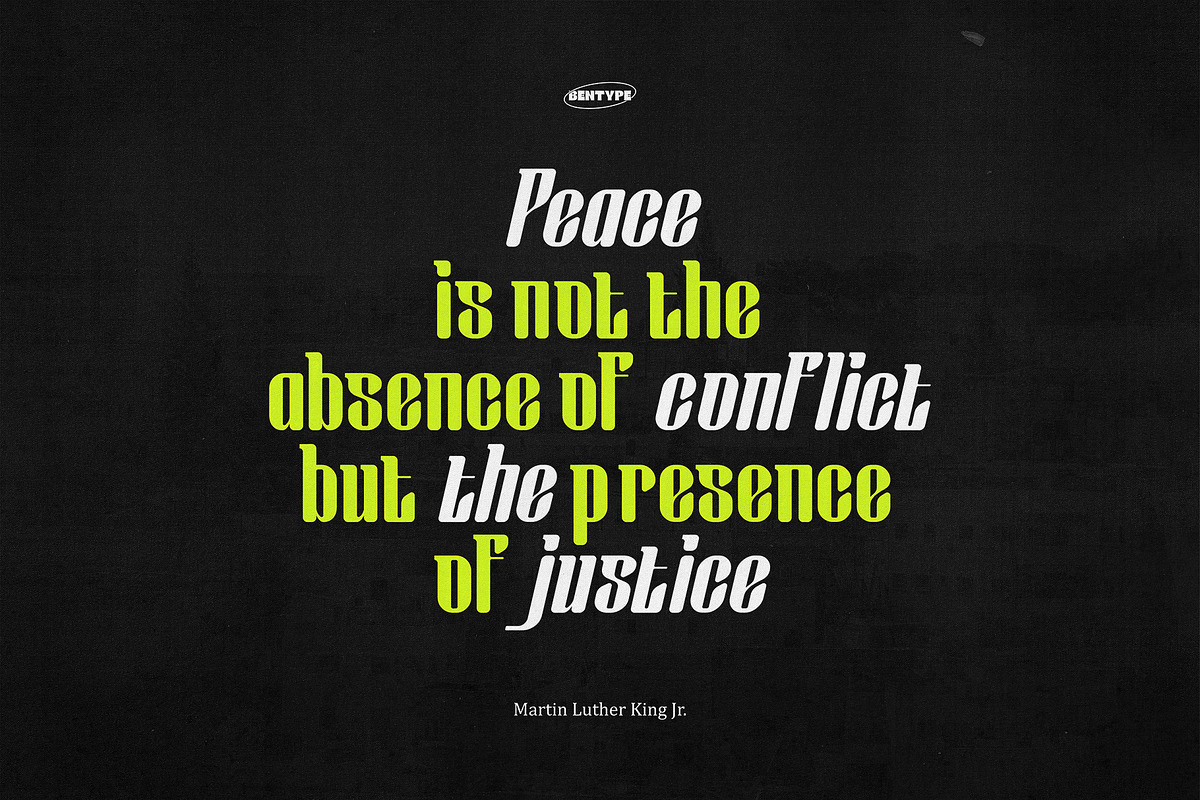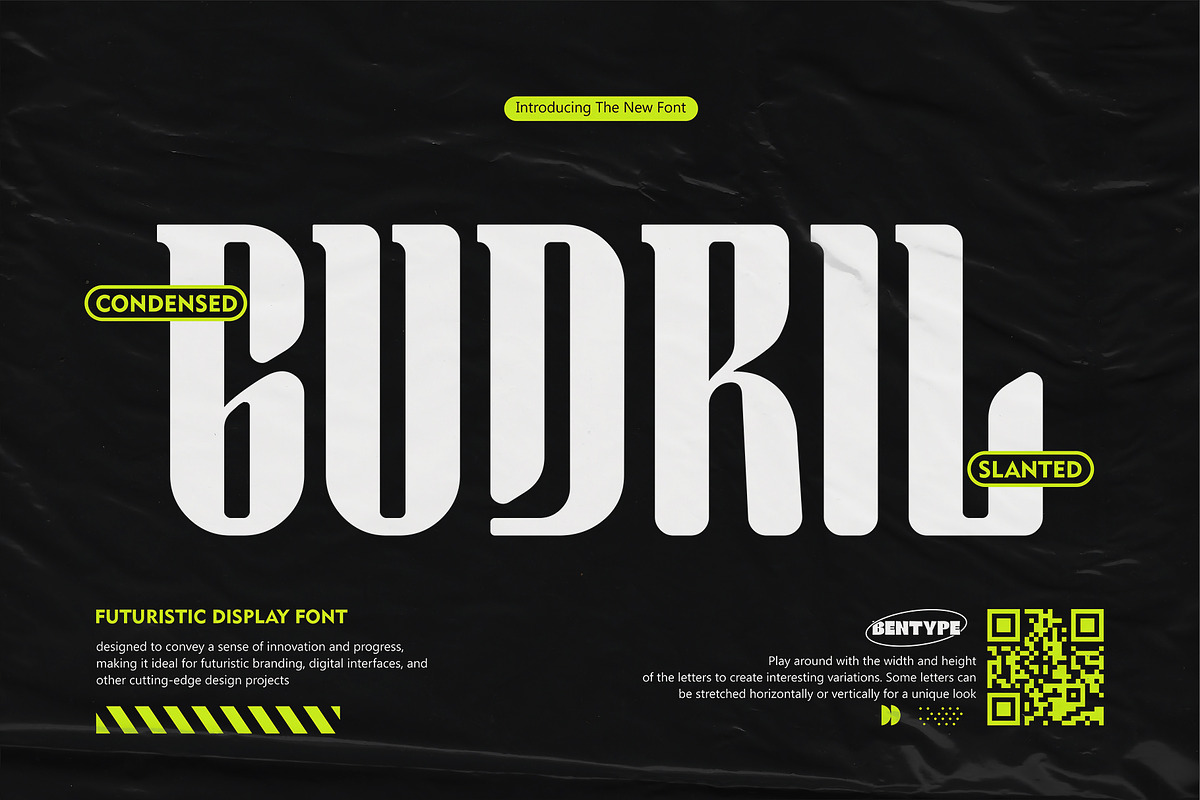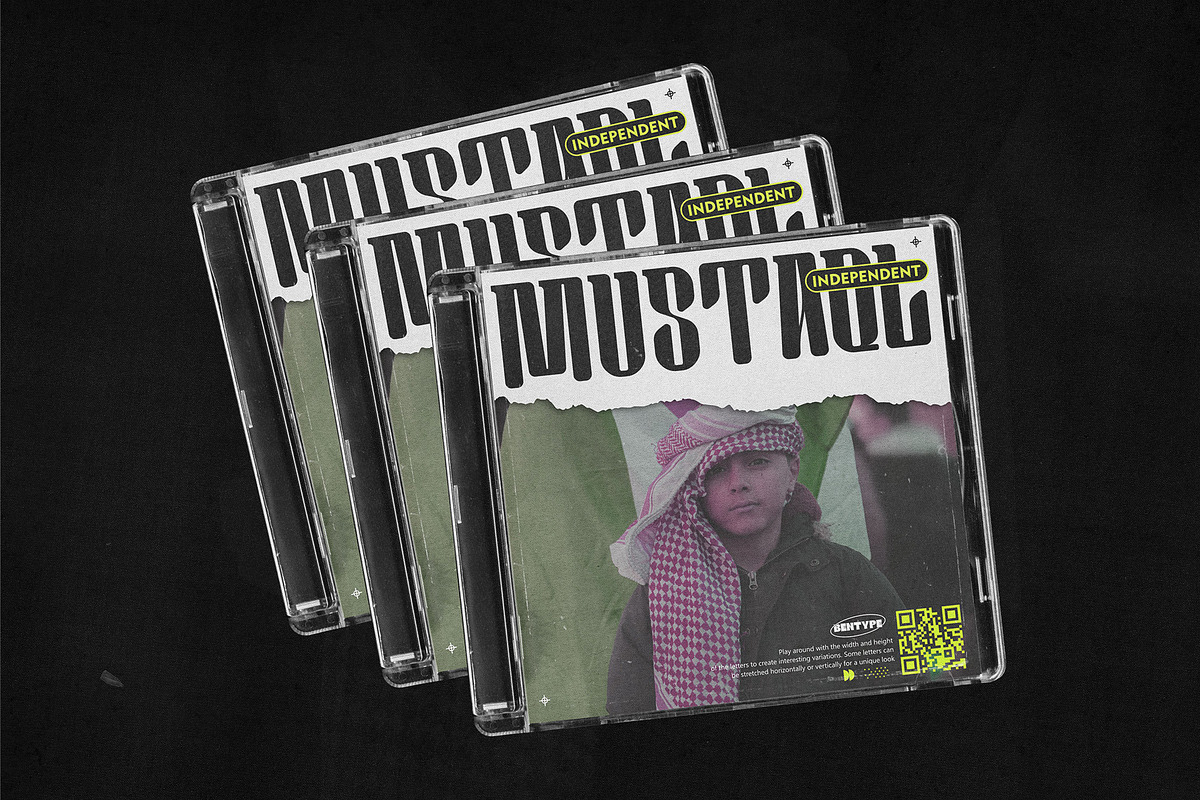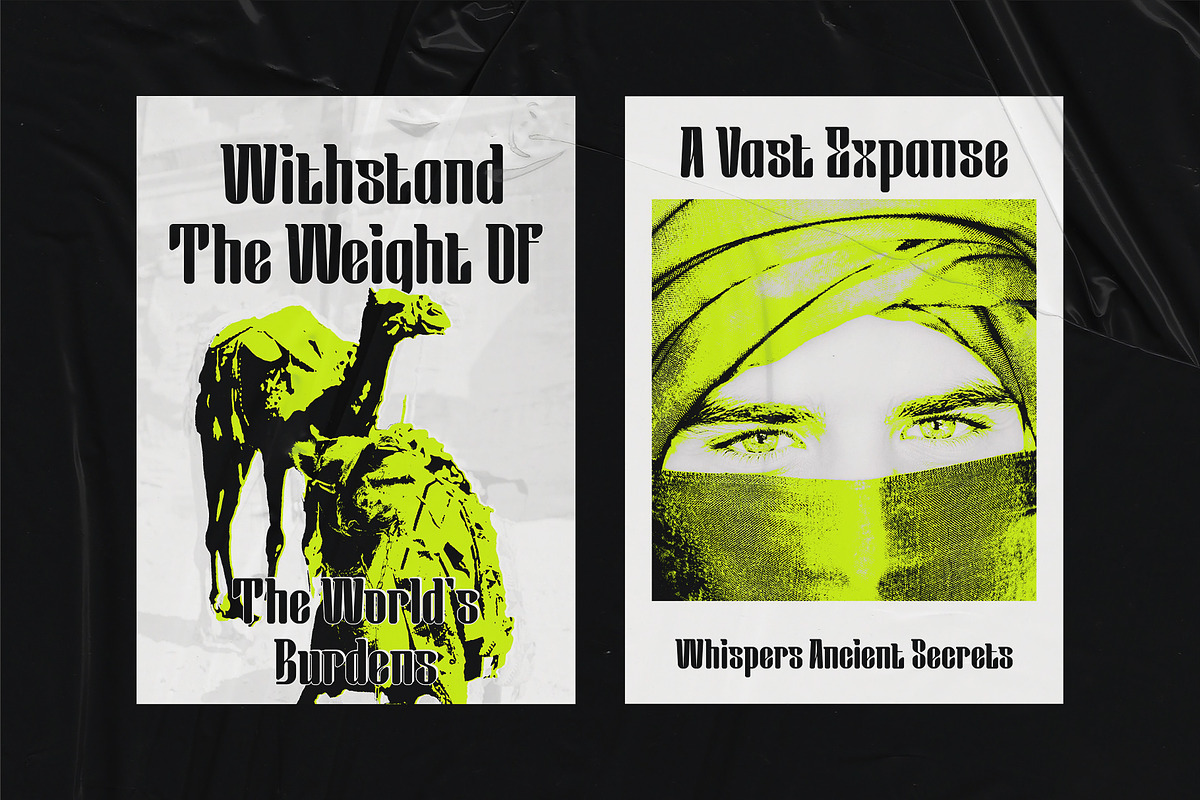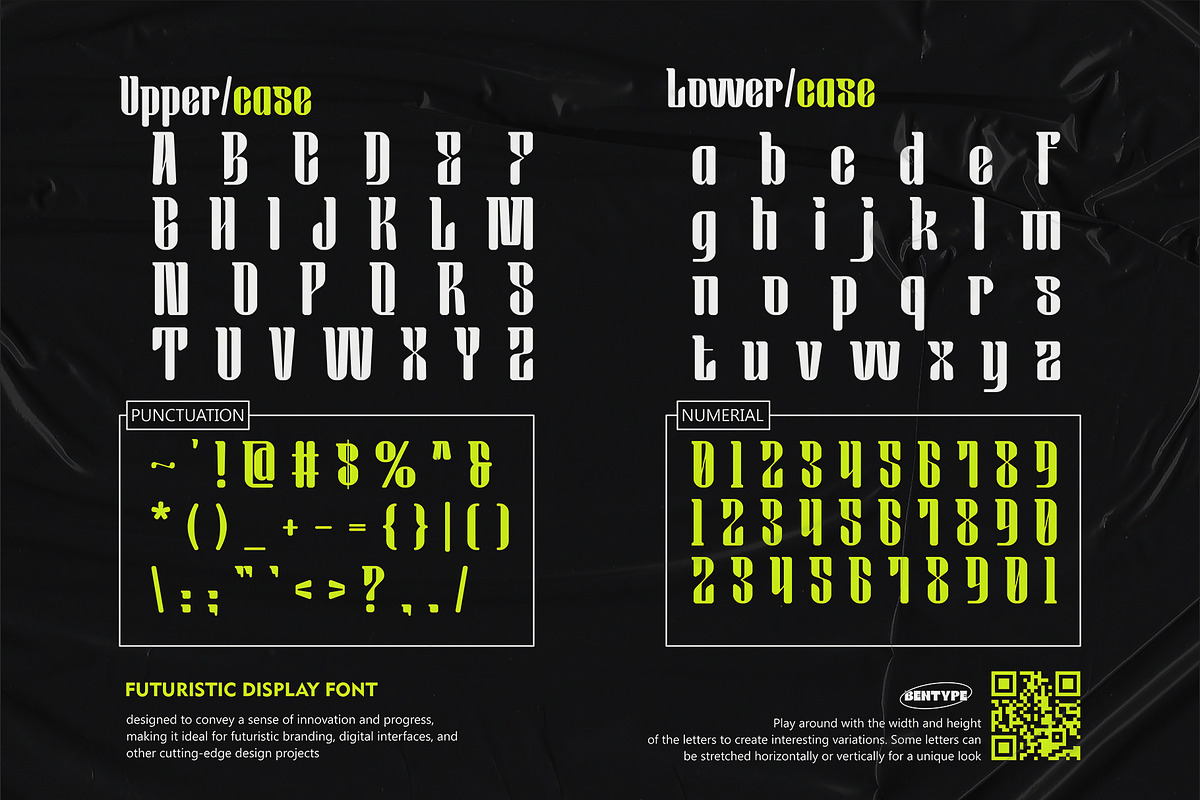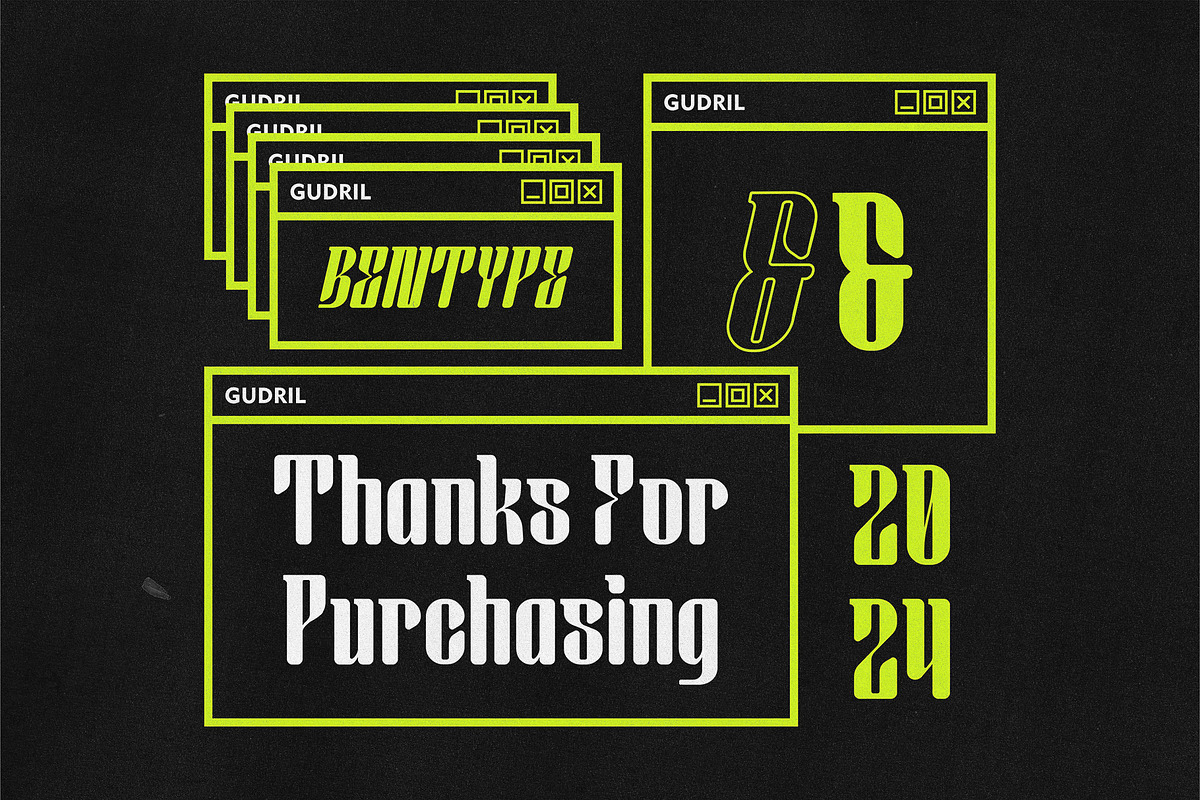
Gudwil - Futuristic Display font
Gudwil - Futuristic Display fonts embody the spirit of innovation, technology, and forward-thinking design. Gudwil - Futuristic Display fonts typically feature sleek, clean lines, geometric shapes, and often incorporate elements that convey a sense of futurism, such as sharp angles, unconventional letterforms, and dynamic spacing.